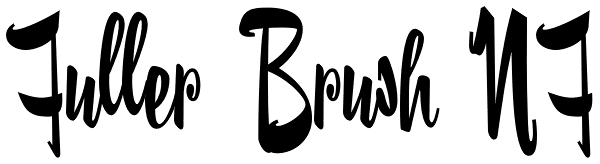
Fuller Brush NF
A snappy single-stroke alphabet from The New Lone Pine ABC of Showcard and Ticketwriting, which Aussie author C. Milnes suggested should be executed with a well-loaded brush, provided the inspiration for this loose, lilting retro script. Its...